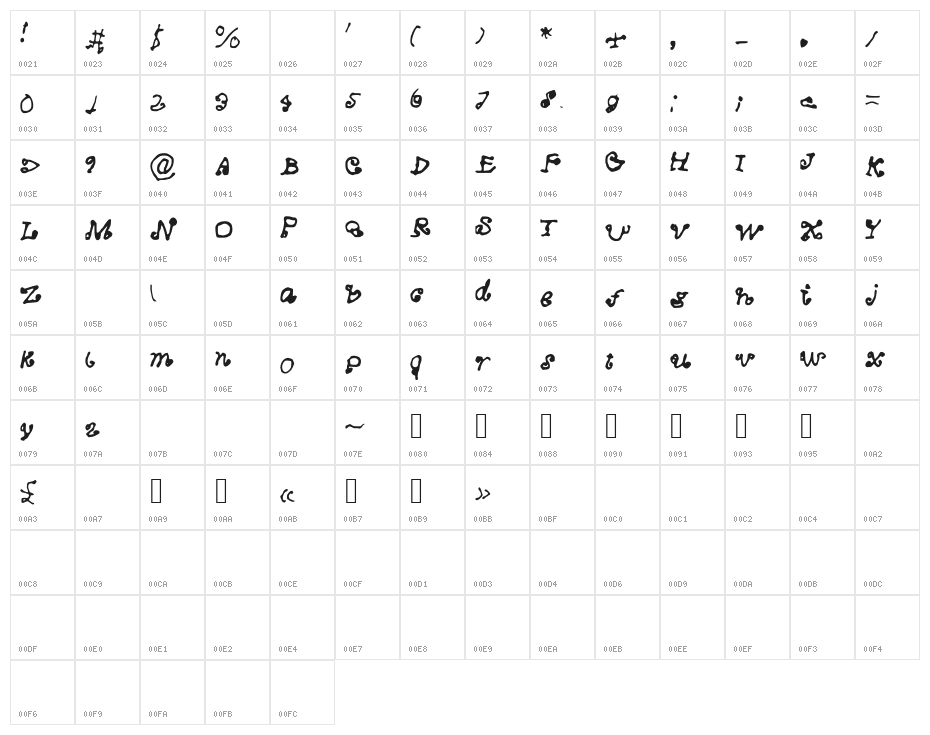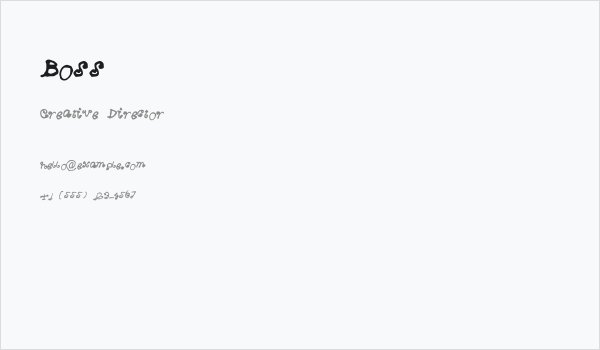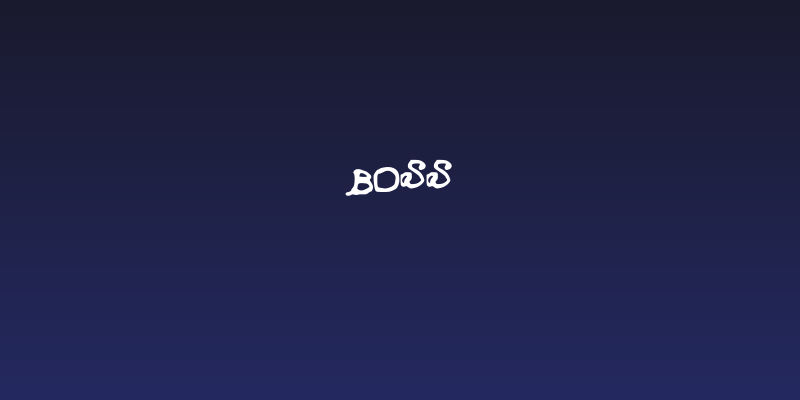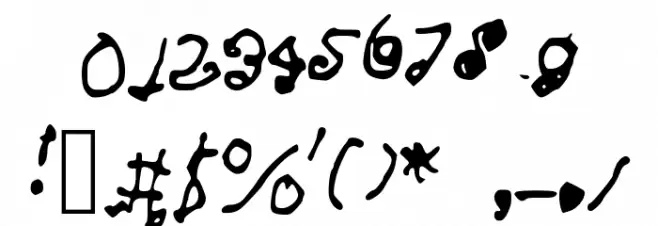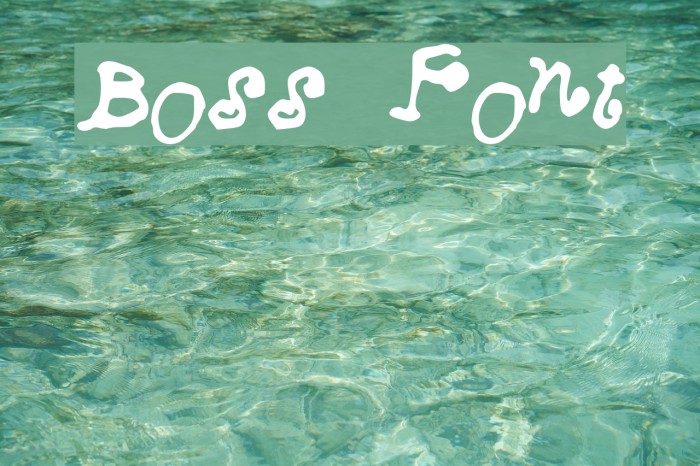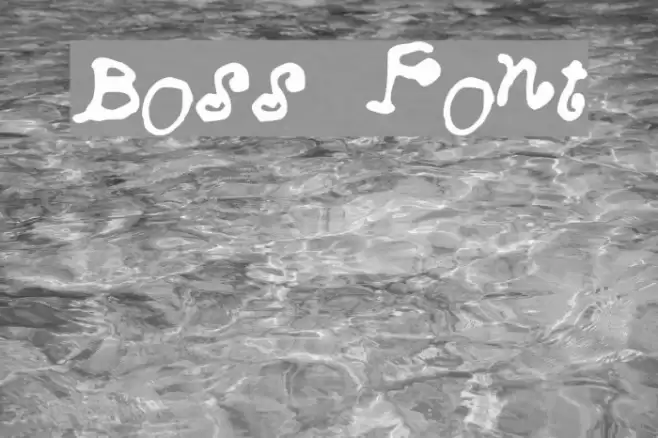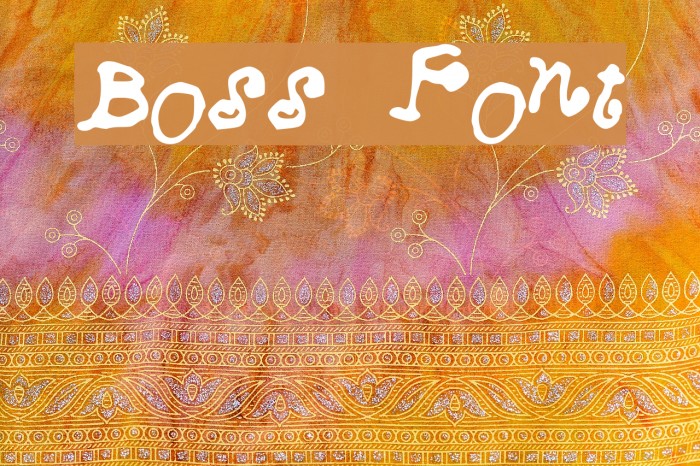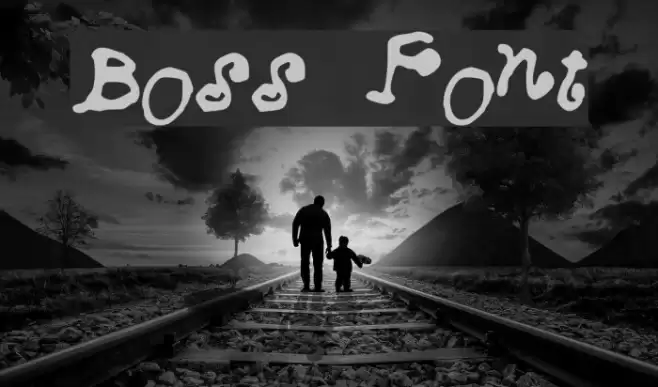
Boss Font
Boss Description
This font features an expressive and artistic style, characterized by its bold and fluid strokes. The letters have a hand-drawn appearance, with irregular shapes and varying thickness that give it a dynamic and lively feel. The uppercase and lowercase letters maintain a consistent style, with playful curves and loops. The numbers and special characters follow the same whimsical design, making the font suitable for creative and informal applications. Its unique style makes it stand out, offering a sense of movement and energy.
| Use Case | Logos, Posters, Invitations |
| Proposed Projects | Ideal for creative projects such as posters, invitations, branding, and artistic designs. |